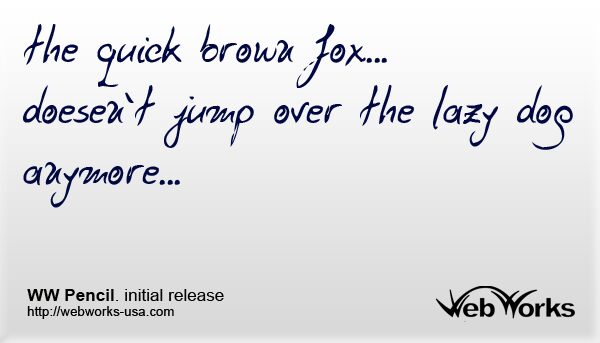
WW Pencil by MJP WebWorks USA LLC is a free brush script with restless, sharply tapered strokes and broad changes in weight. Its loose construction, pointed ends, and oversized looping descenders give the lettering the speed of an improvised paint marker.
Contemporary sign-painting style makes it a fit for music posters and festival graphics. It also suits streetwear packaging and skate merchandise. The strongest use is a large event title, where its irregular silhouettes can become part of the artwork.